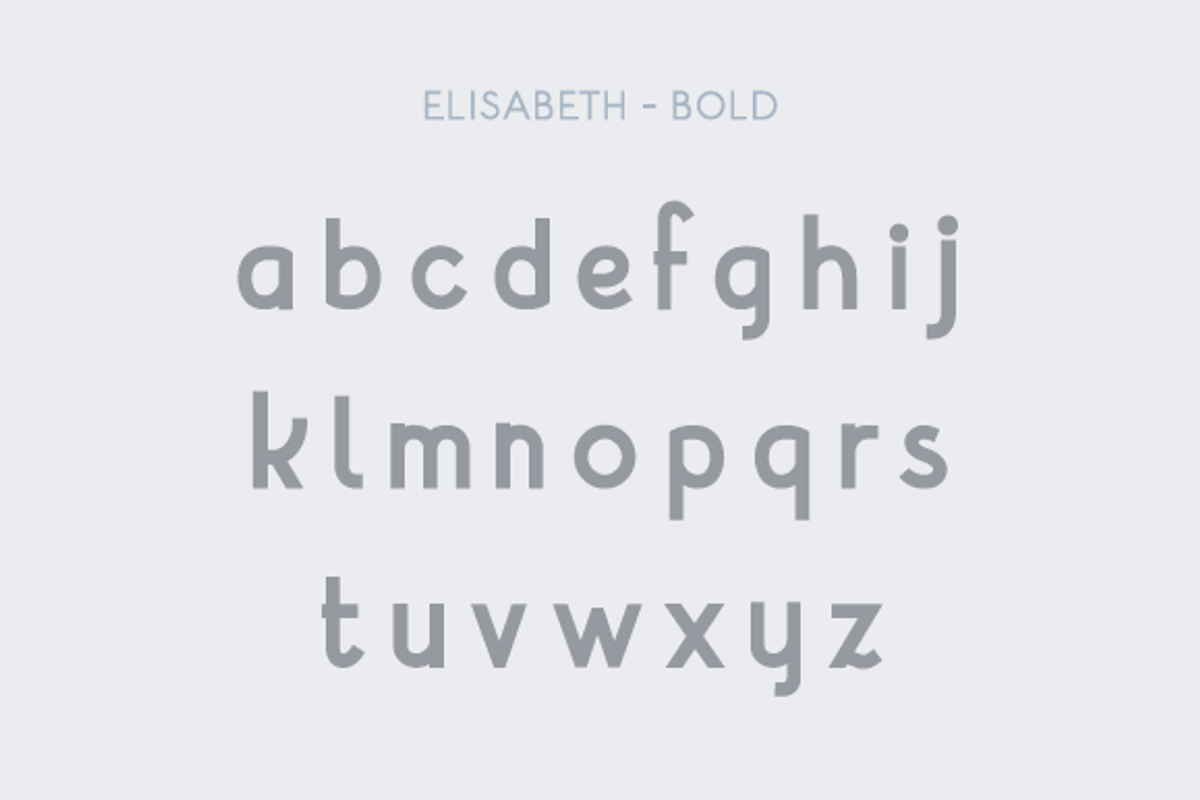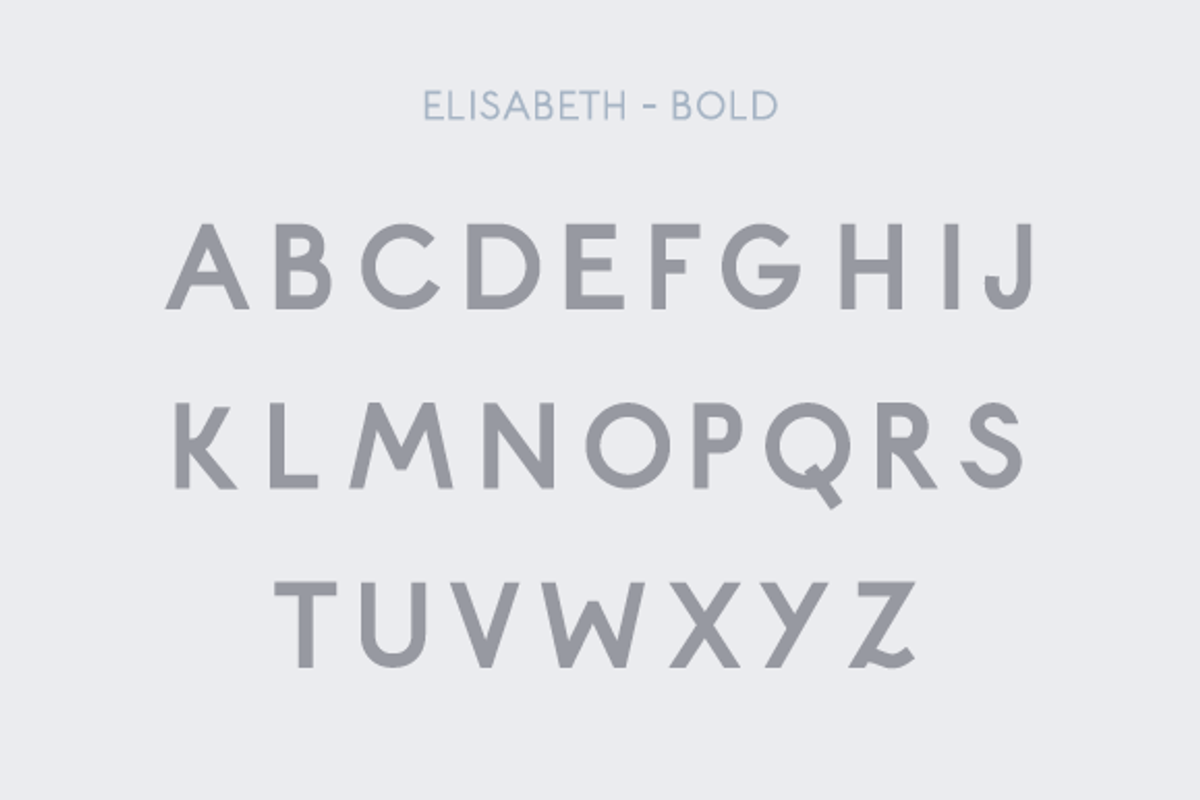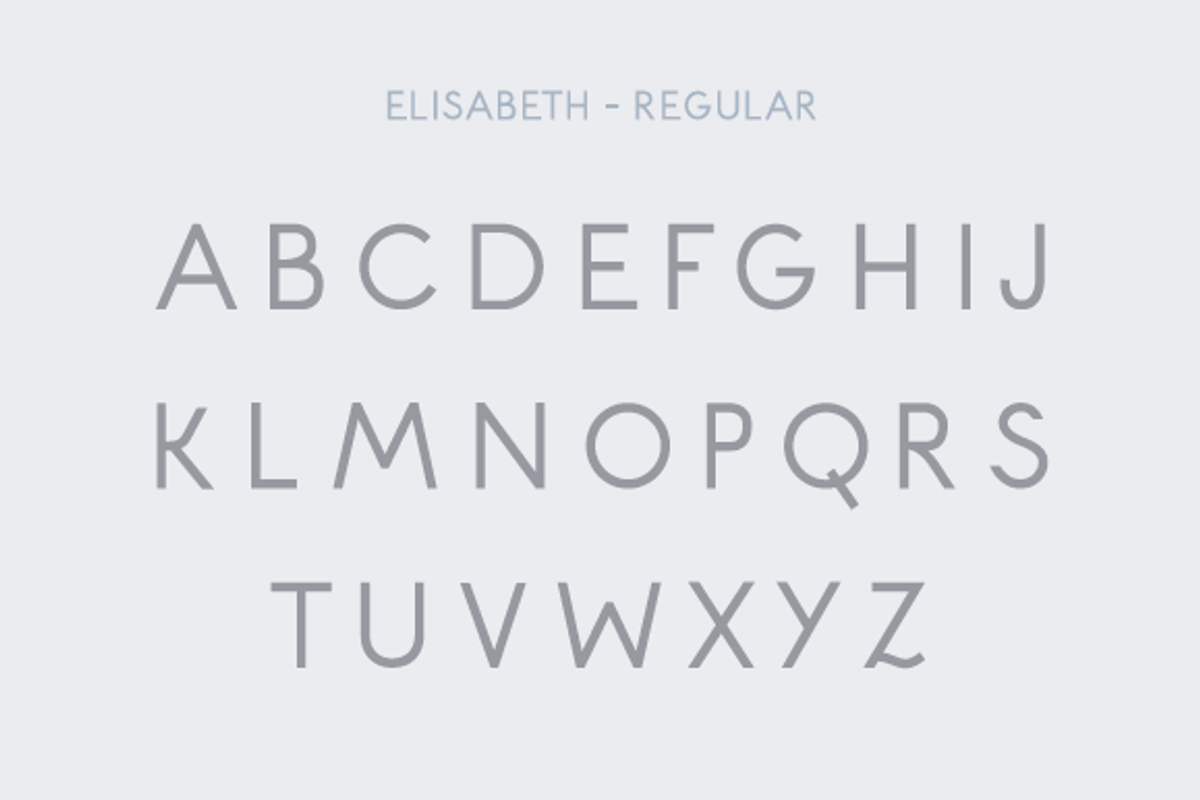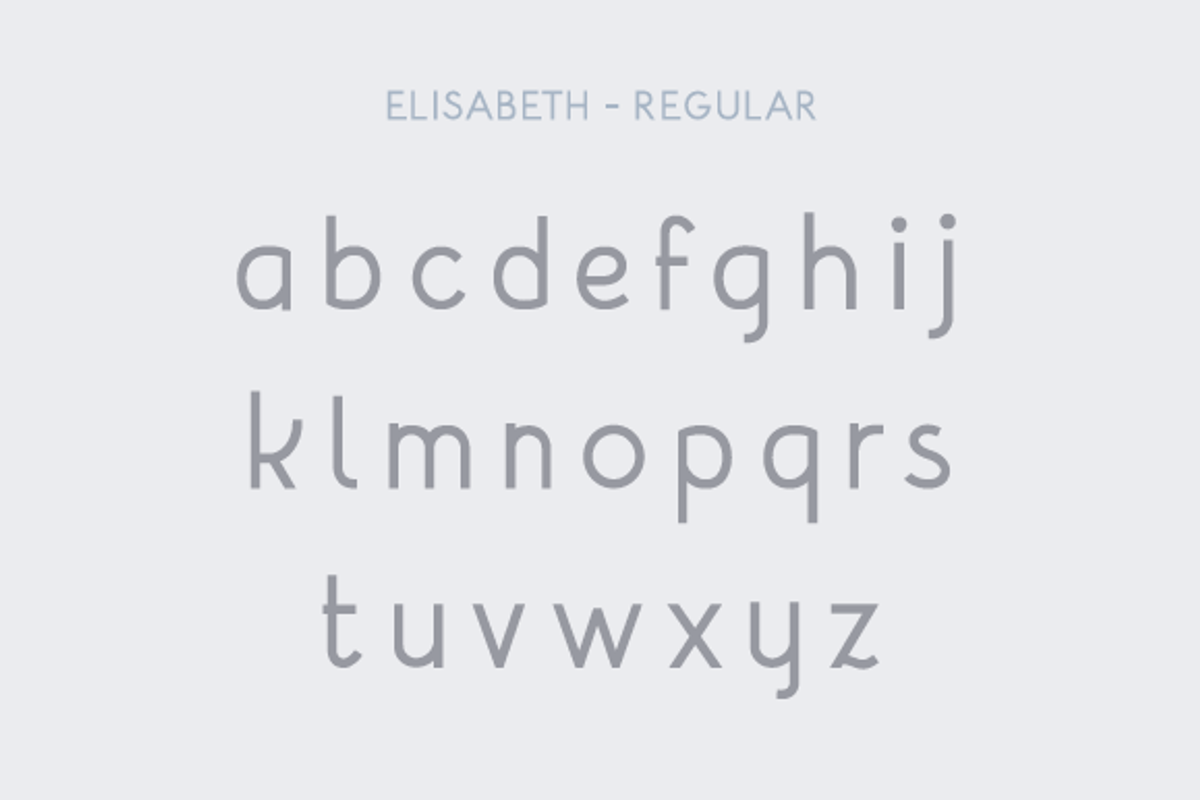
ELISABETH | FONT
ELISABETH | FONT by kadusupanik is a font selected for branding, posters, packaging, typography.
- Elisabeth is an free uppercase e lowercase display typeface inspired by the classic sans serif font family's.
ELISABETH | FONT by kadusupanik fits naturally into Branding, posters, packaging, typography.